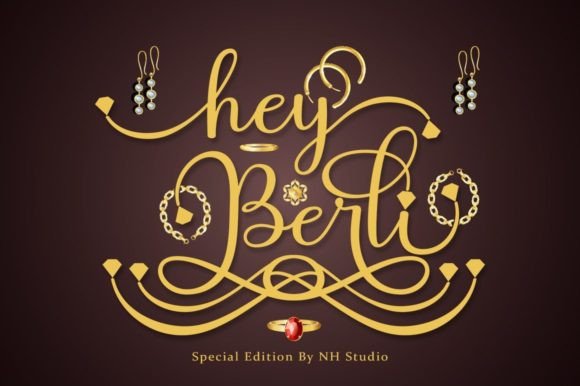
Journey into the world of elegance and sophistication with Hey Berli Font, a script font that exudes contemporary charm. Carefully crafted by NH Studio, Hey Berli is a masterpiece designed to elevate your creative projects to new heights.
Immerse yourself in the beauty of Hey Berli's intricate curves and delicate swashes. Each character dances across the page with grace and poise, adding a touch of timeless elegance to your designs. Whether you're crafting a heartfelt wedding invitation, a captivating brand identity, or a stunning social media post, Hey Berli will leave a lasting impression.
Unleash your creativity and explore endless possibilities with Hey Berli. Its versatility knows no bounds, making it the perfect choice for a wide range of projects, from enchanting logos and eye-catching posters to personalized cards and memorable invitations. The font's PUA encoding ensures effortless access to all glyphs and swashes, empowering you to add intricate details and flourishes with just a few clicks.
Indulge in the art of typography and let Hey Berli transform your words into captivating visual masterpieces. Its sophisticated accents and modern touches will captivate your audience, leaving them in awe of your design prowess. With Hey Berli, you'll create designs that resonate, evoke emotions, and leave an unforgettable impact.